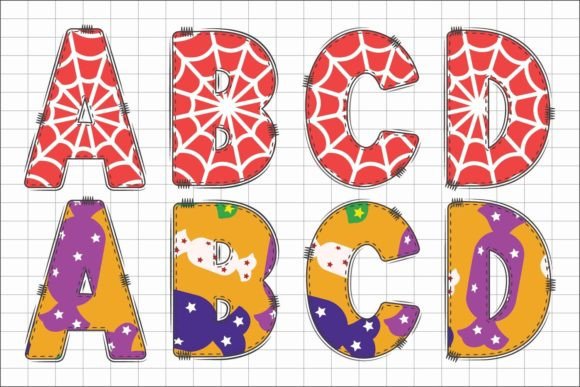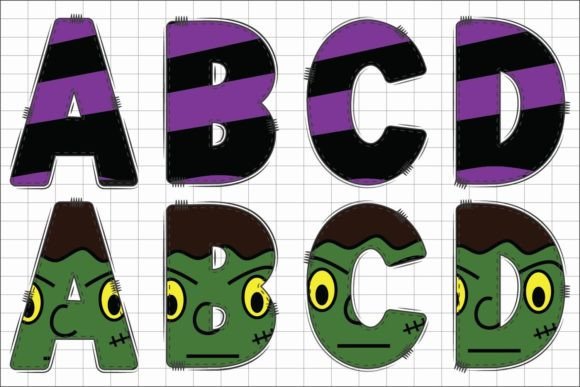
Get Ready for a Spook-tacular Design
As the leaves change colors and the air grows crisp, designers and crafters alike start thinking about the spookiest time of the year: Halloween. The thrill of creating something eerie and enchanting for friends and family is a creative itch that many of us love to scratch. But have you ever found the perfect font to bring your Halloween-themed projects to life?
Enter the Halloween Day Font, a delightful and detailed font that’s perfect for all your spooky needs. With its cute and fun design, this font is ideal for Halloween-related projects, posters, school designs, flyers, book and movie covers, and much more. Whether you’re a seasoned designer or a crafty enthusiast, the Halloween Day Font is a valuable addition to your design toolkit.
Halloween Day Font Key Features
- Font Family: Halloween Day Font is a sans-serif font family, designed specifically for the Halloween season.
- Character Set: Includes a wide range of characters, including uppercase and lowercase letters, numbers, punctuation, and special symbols, making it suitable for various design projects.
- Unique Characteristics: Features a spooky and eerie design, with bold and playful lines, making it perfect for Halloween-themed designs, decorations, and party invitations.
Halloween Day Font Review
Overall, I found the Halloween Day Font to be a unique and creative choice for any project centered around the spooky holiday. The font is full of personality, with whimsical and playful elements that add a touch of magic to any design. ✨
Some of the things that work well in this font include its ability to add a sense of nostalgia and charm to any design. The font’s intricate details and ornate flourishes make it perfect for titles, headings, and other text elements where you want to draw attention. ✨ Additionally, the font’s bold and striking lines make it great for creating a sense of drama and tension.
However, there are some limitations to the Halloween Day Font that are worth noting. ⚠️ For one, the font can be quite overwhelming if used too liberally, so it’s best to use it in moderation to avoid visual fatigue. ⚠️ Additionally, the font’s intricate details can make it difficult to read at smaller sizes, so be sure to test it out at different font sizes before committing to a final design.
- Unique and creative design
- Whimsical and playful elements
- Intricate details and ornate flourishes
- Bold and striking lines
- Perfect for titles, headings, and other text elements
- Great for creating a sense of nostalgia and charm
Use the Halloween Day font for spooky-themed designs, such as Halloween invitations, party decorations, and horror movie posters.
Experiment with different font sizes and colors to create a dramatic and eerie effect.
Halloween Day font is ideal for:
- Halloween party invitations and decorations
- Horror movie posters and trailers
- Spooky-themed social media graphics and memes